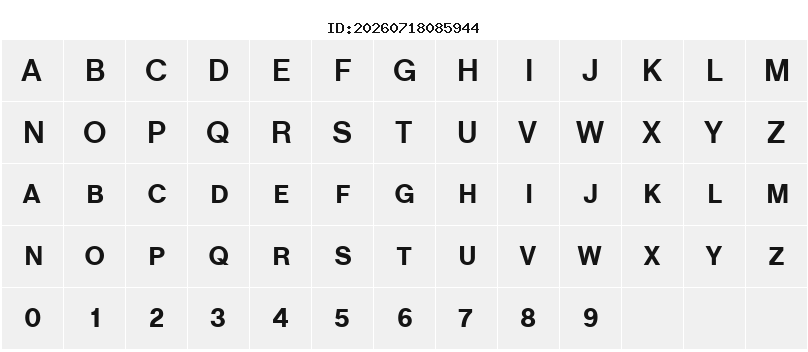
• Font Name: ChaletBookTTSC
• Full Font Name: ChaletBookTTSC Bold
• Designer: House Industries
• Manufacturer: House Industries/Brand Design Co. Inc,
• Description: Created for the House Book.
About ChaletBookTTSC.ttf
ChaletBookTTSC.ttf is a modern, elegant sans-serif font designed for ultimate readability and visual harmony. Perfect for branding, headlines, web design, and print materials.